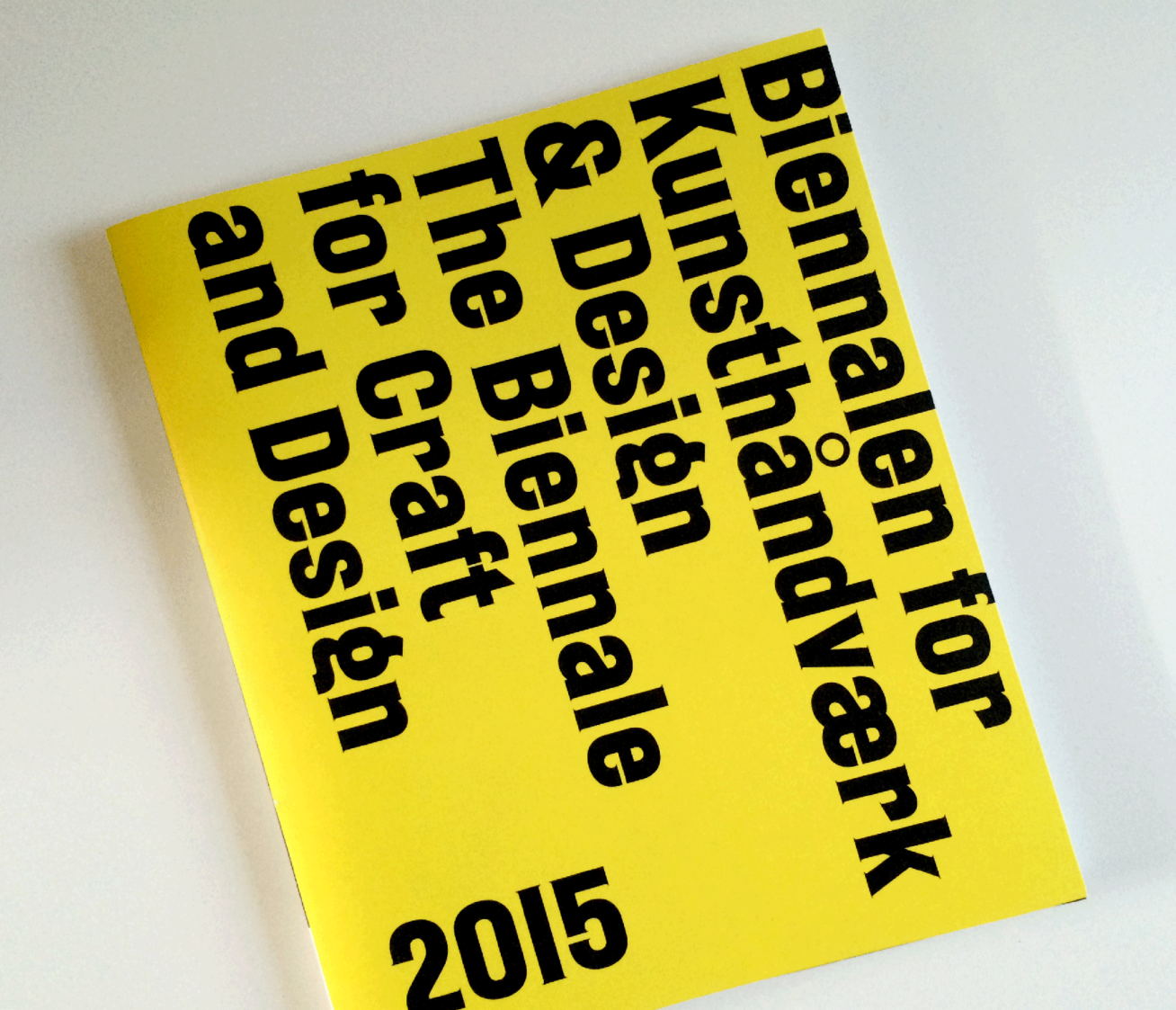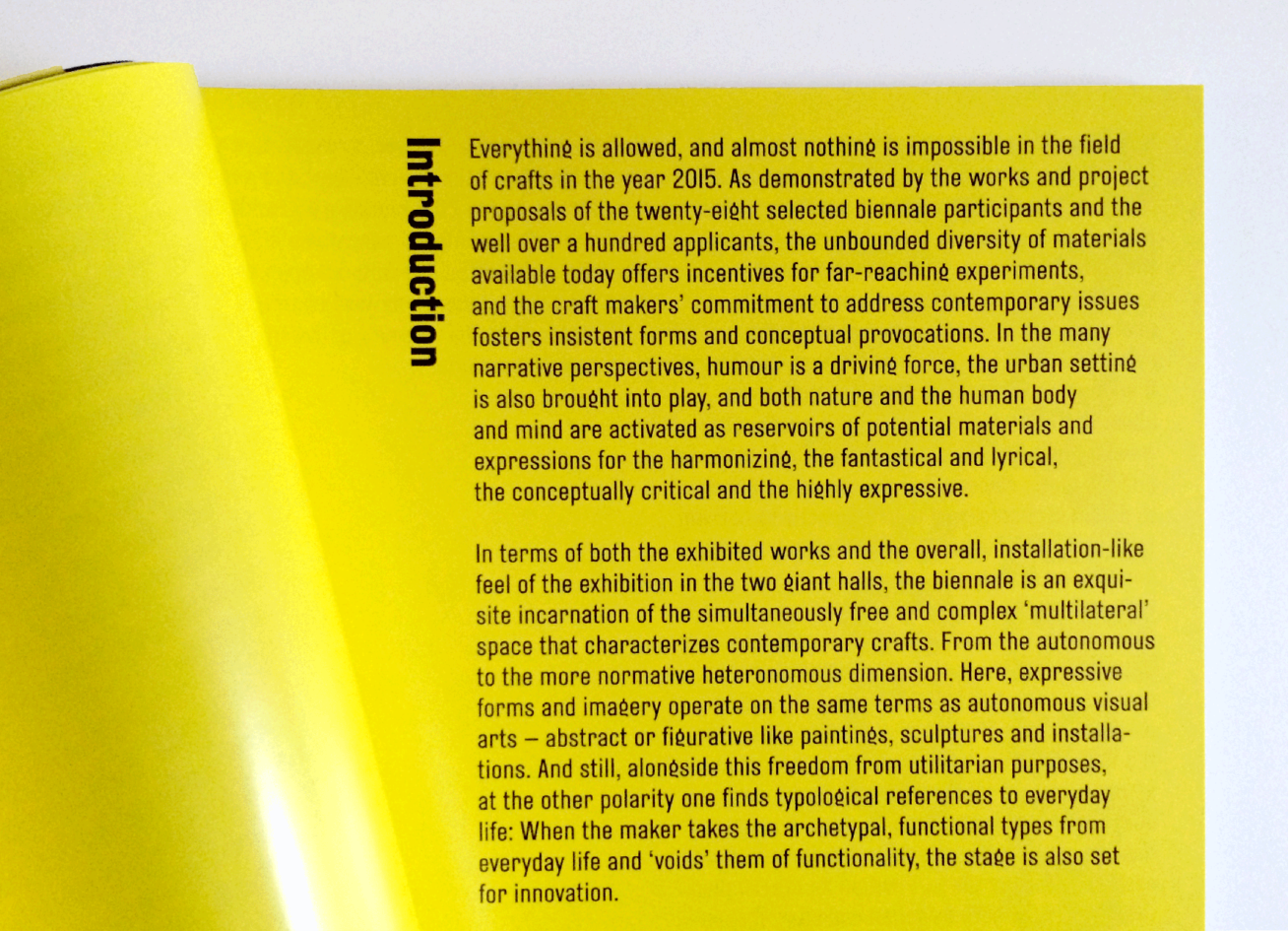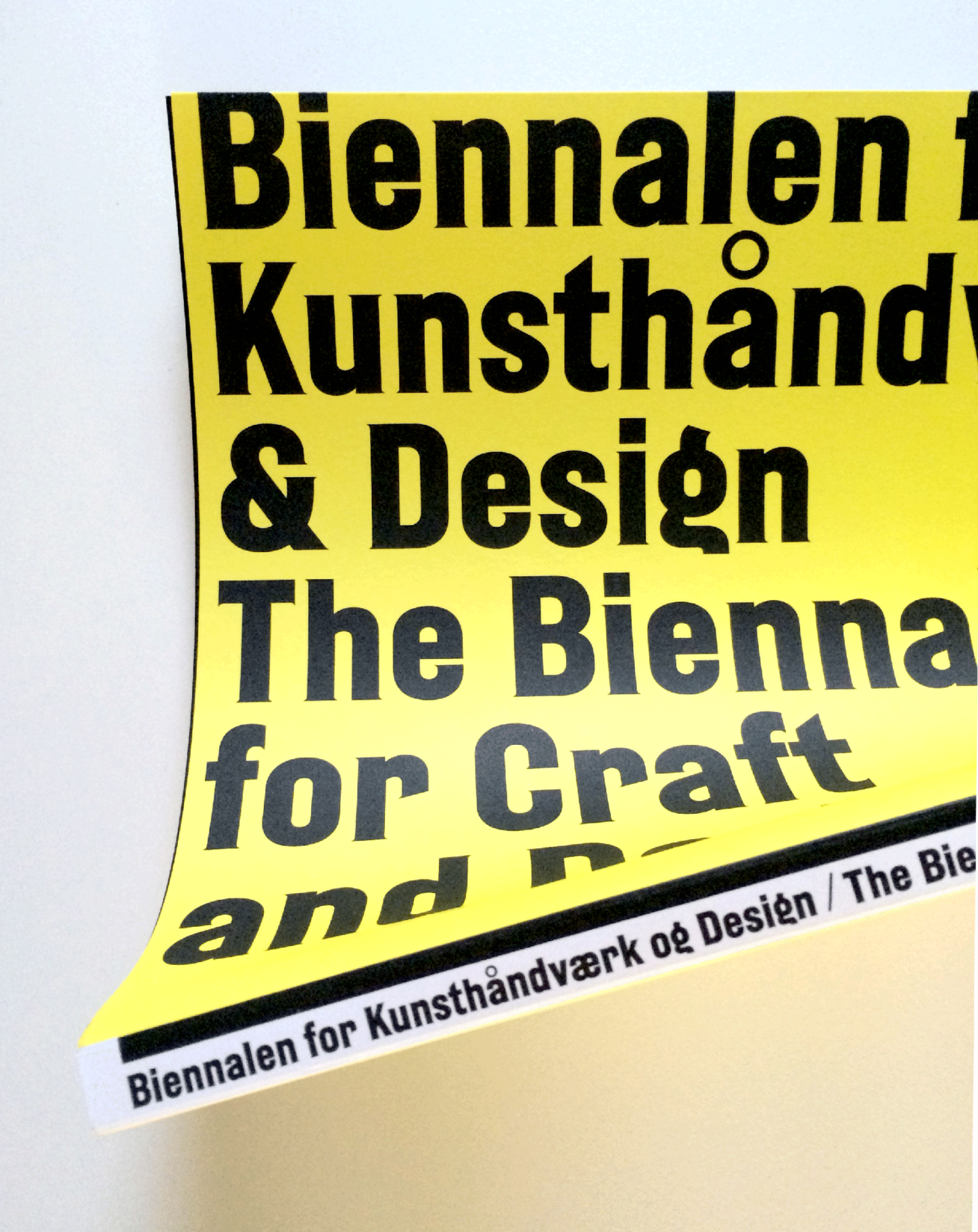
A revival of a typeface used for destination signs displayed on the front of Danish trams c.1920. Using original hand-painted signs as a starting point, the typeface has been lovingly revived as a contemporary design now available in seven unique weights.